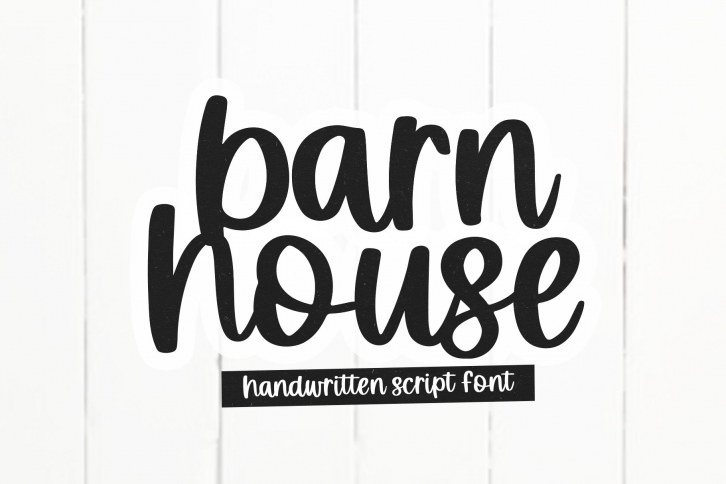
Barnhouse is a trendy and unique font with an authentic style. It was designed by KA Designs and it's a great choice for creative people who need such a font. It was released on November 9, 2020 and the file size is 19.22 MB. Barnhouse will add an organic vibe to any design idea!